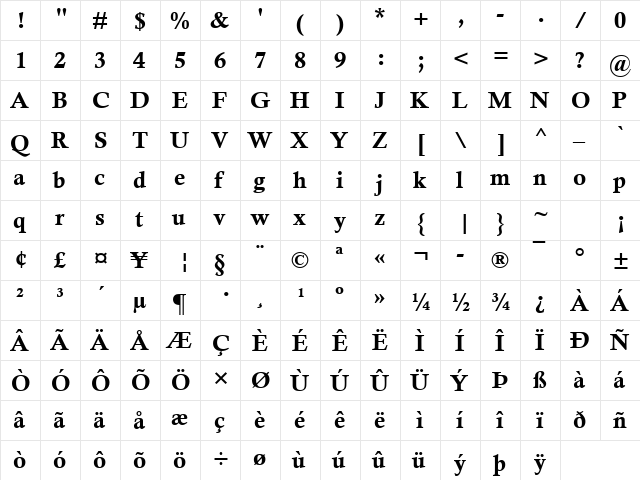
Calisto MT Bold
Design Context for Calisto MT Typeface
Calisto MT offers clean, dependable letterforms without strong stylistic allegiance, making it a practical choice for designers who need flexibility. Its bold stroke weight gives it real presence on the page.